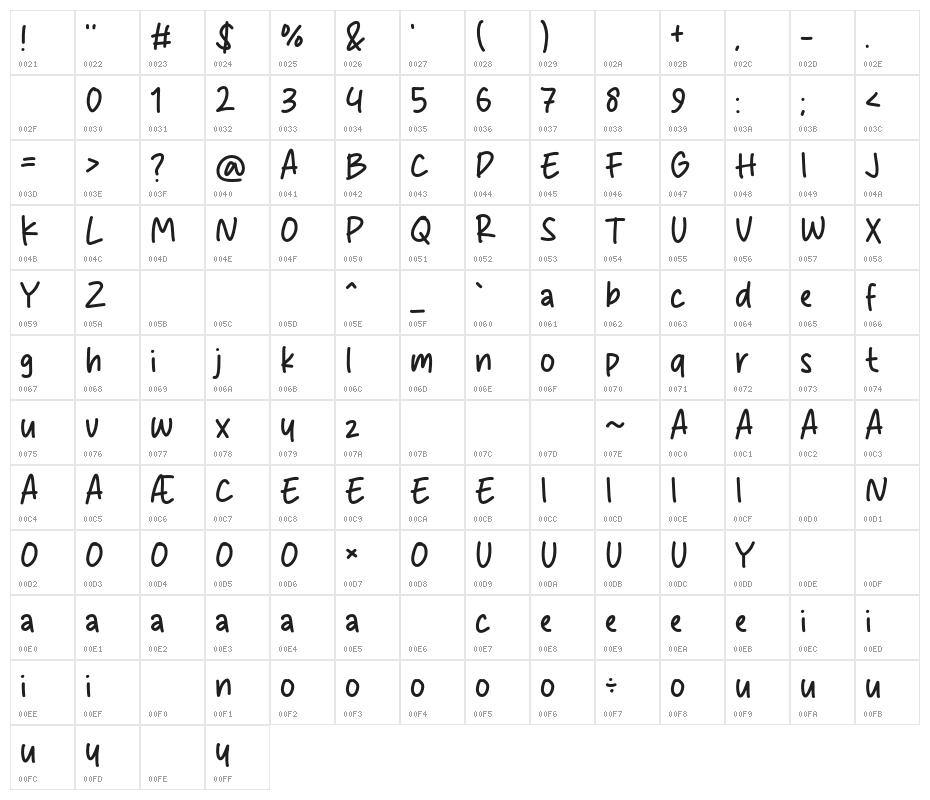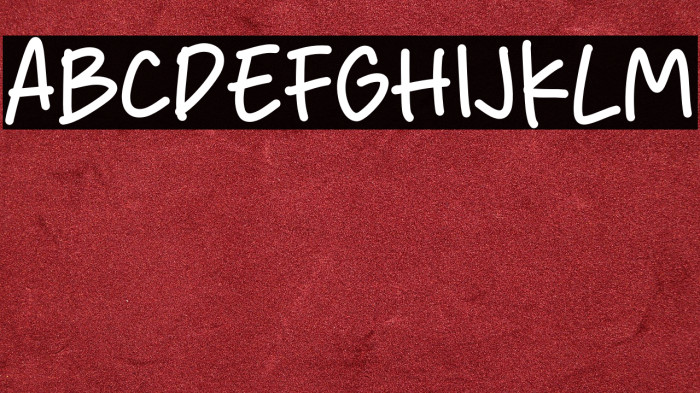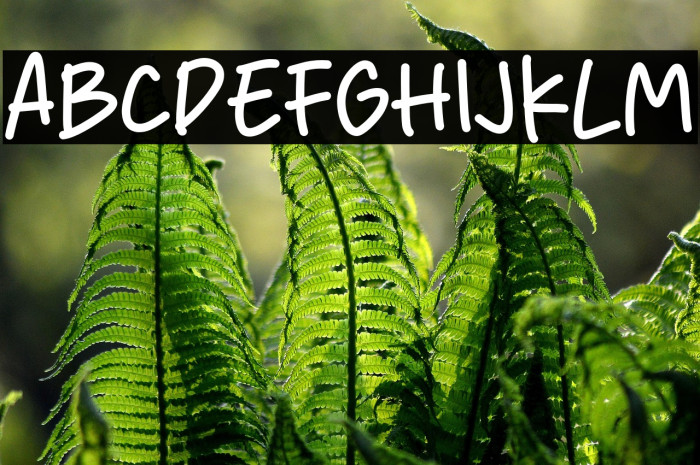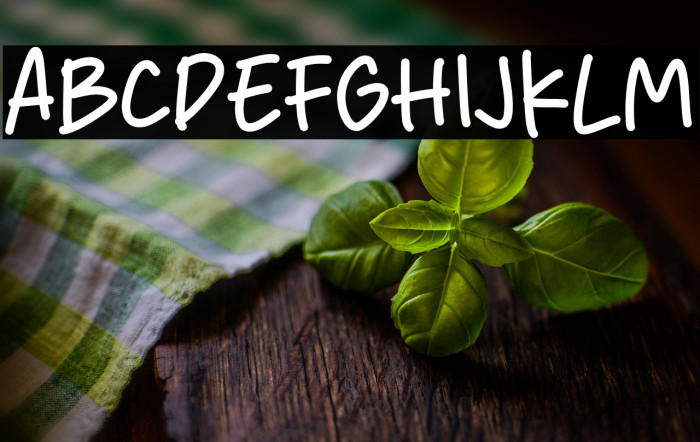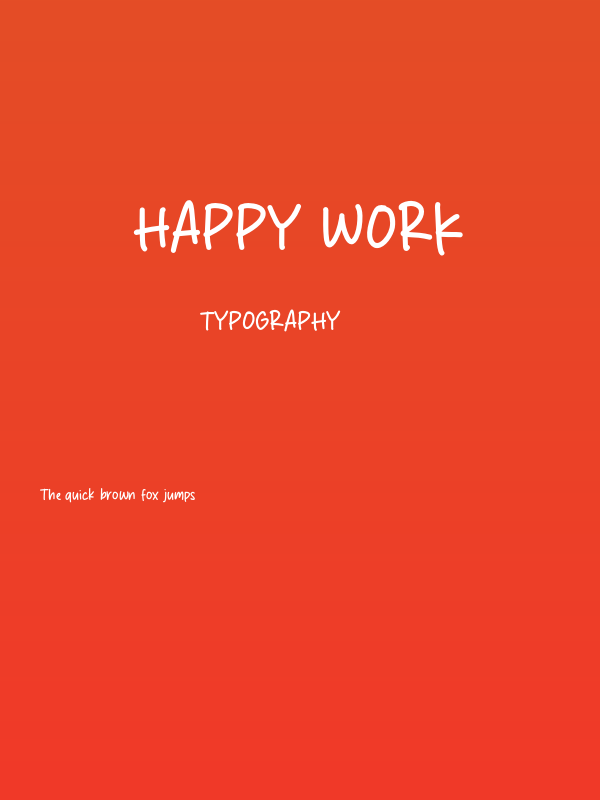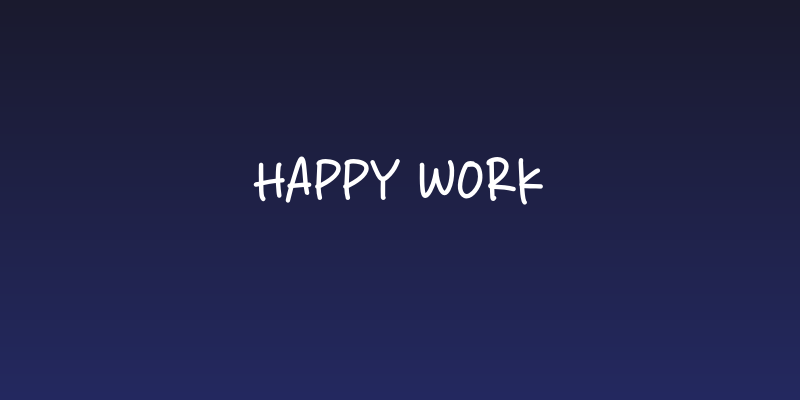
Happy Work Font
Happy Work Description
This font exudes a playful and casual vibe, characterized by its handwritten style that mimics the natural flow of penmanship. The letters are slightly irregular, adding to its charm and authenticity. The strokes are consistent in thickness, providing a uniform appearance while maintaining a relaxed feel. The characters are well-spaced, ensuring readability without compromising its informal aesthetic. This font is versatile, suitable for projects that require a personal touch or a friendly tone. Its simplicity and approachability make it ideal for a variety of creative applications.
| Overall Style | Casual |
| Use Case | Headlines, Informal text, Creative projects |
| Proposed Projects | Ideal for greeting cards, children's books, personal blogs, and informal branding. |